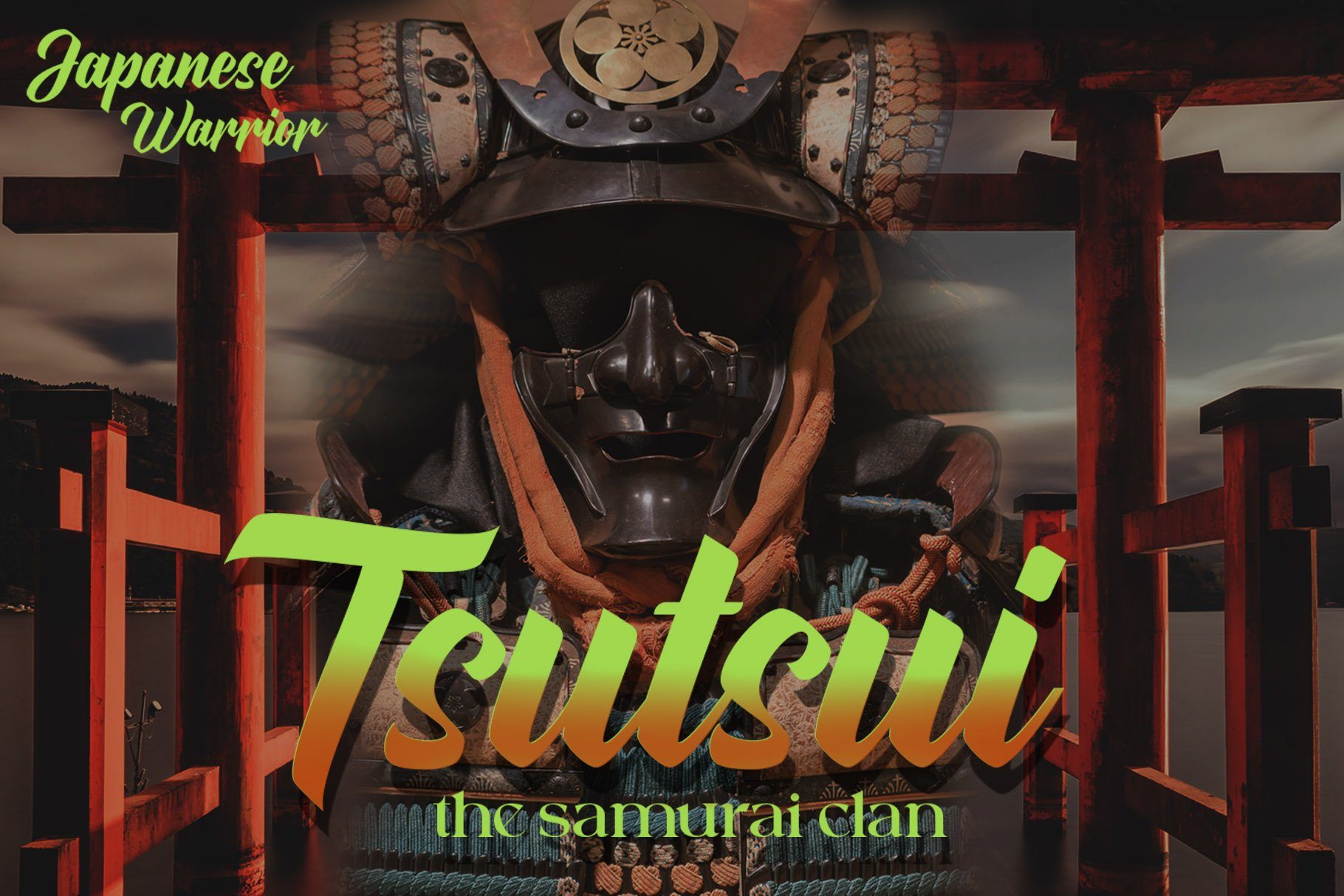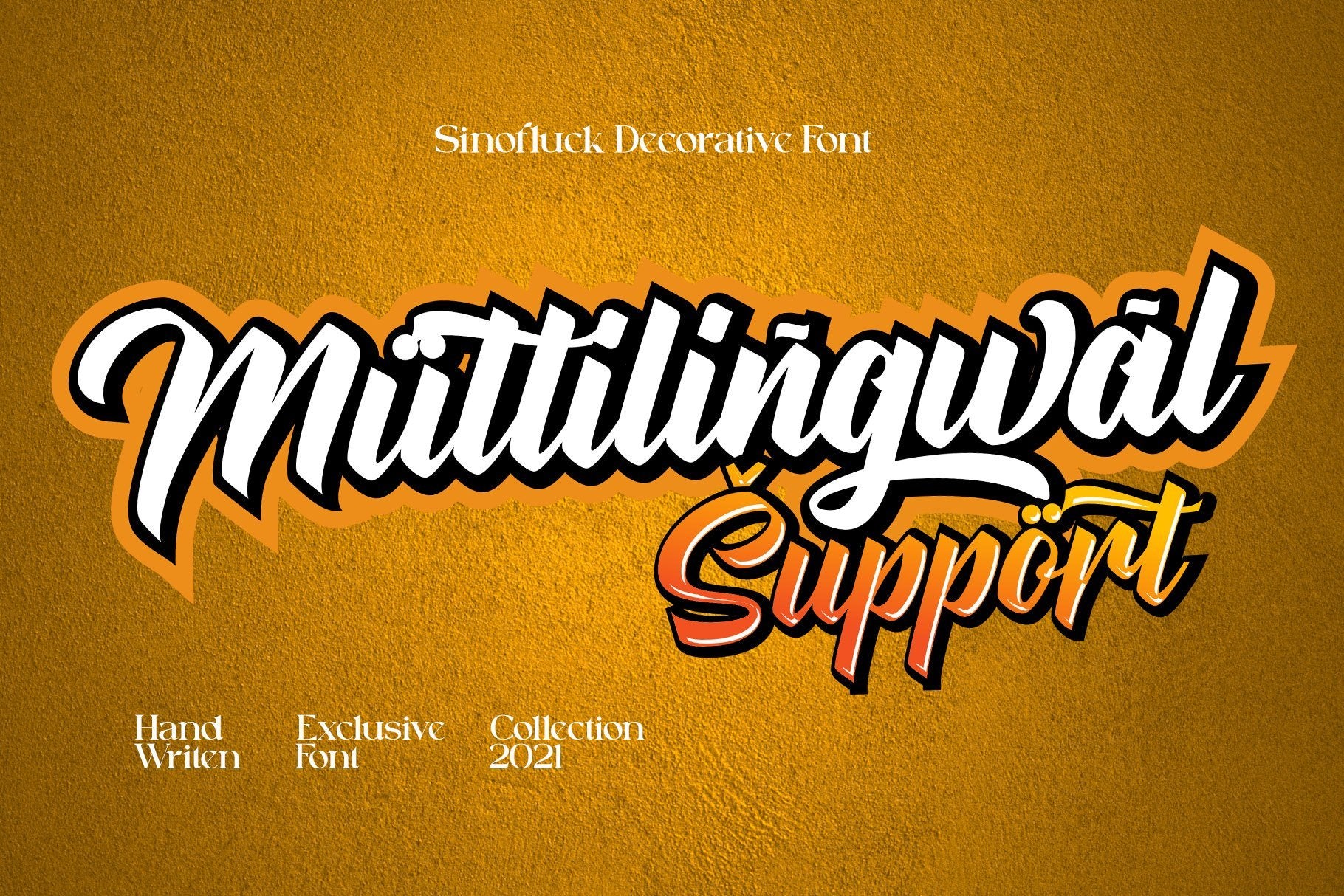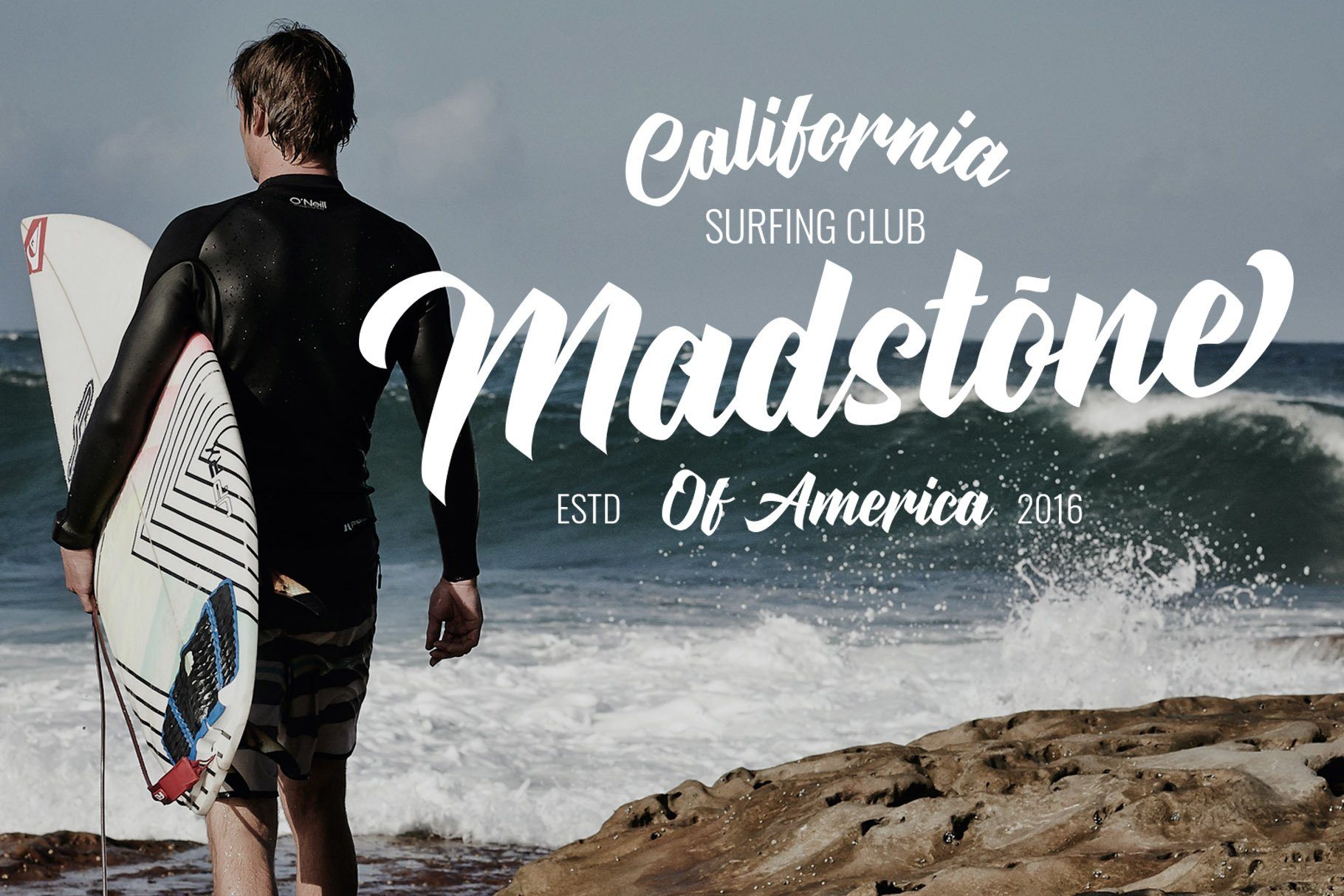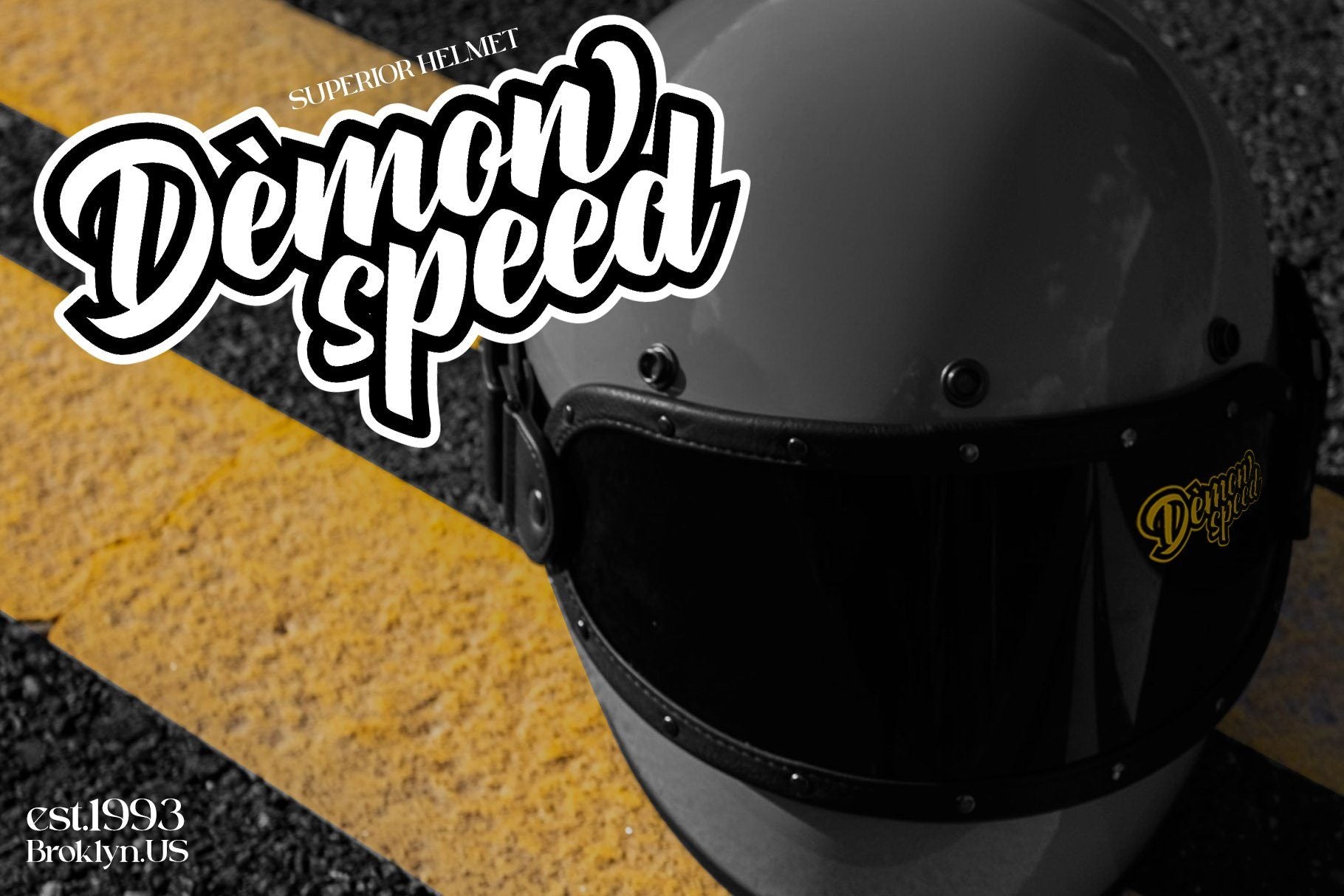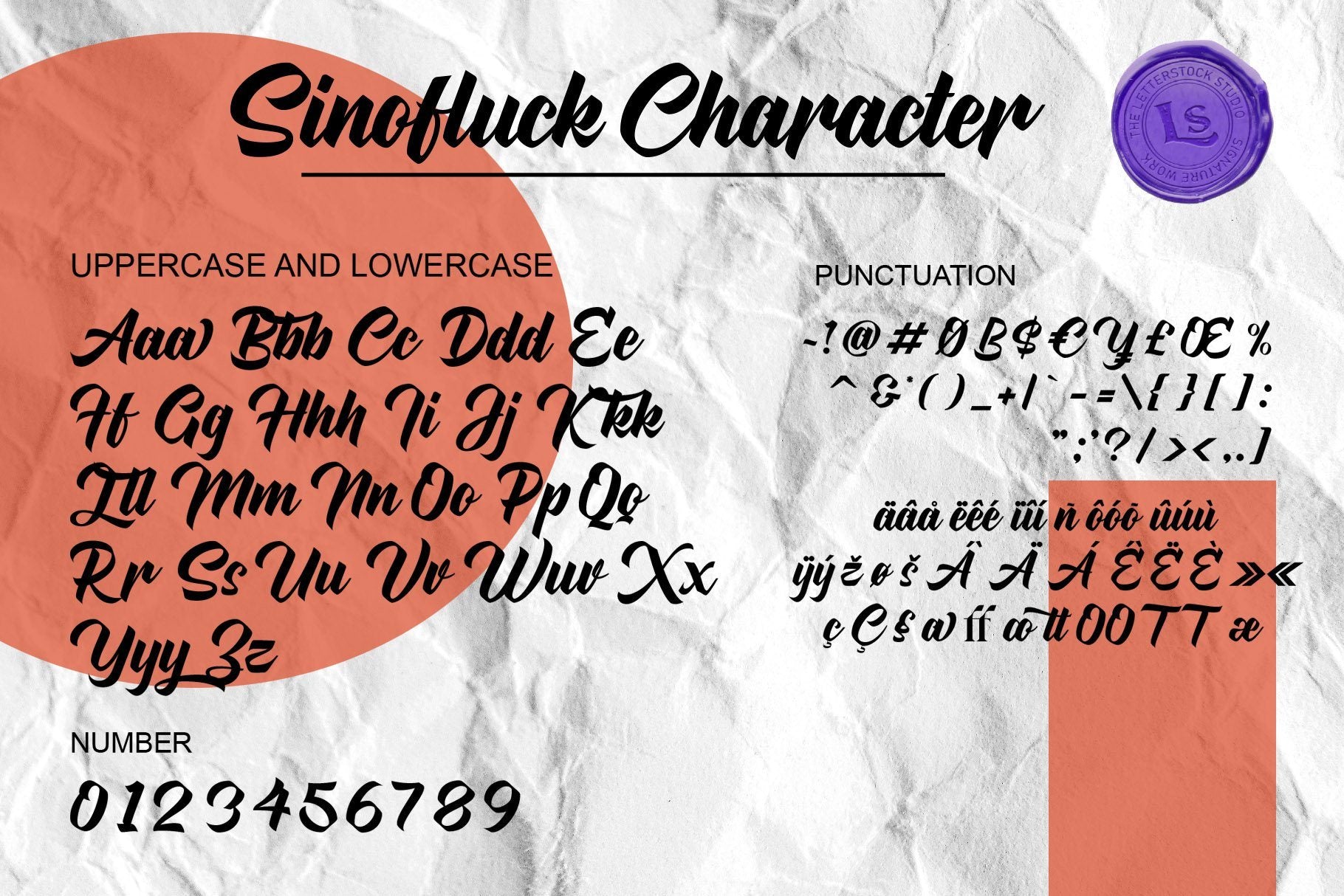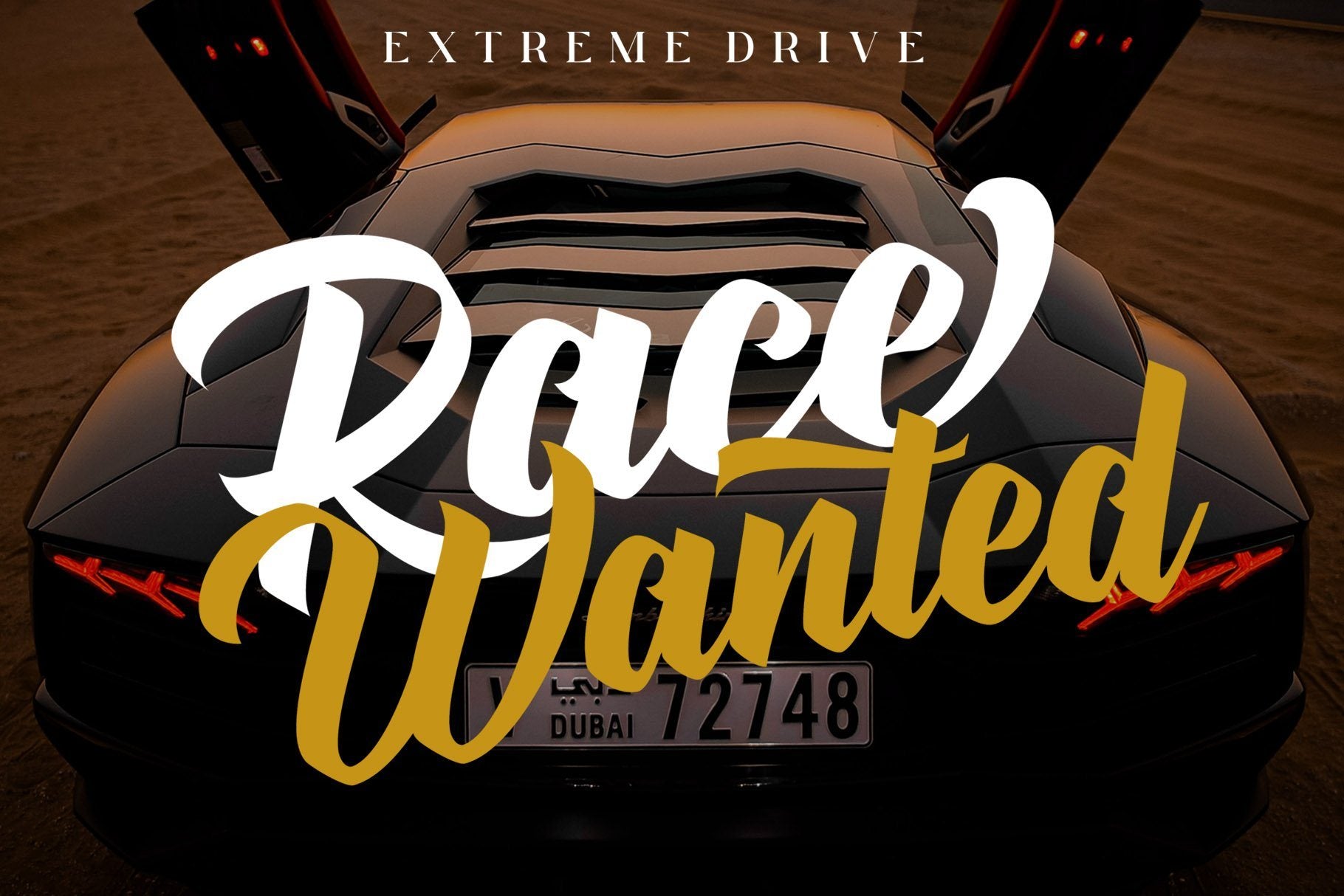
About Sinofluck
**Sinofluck Font** This pair was inspired by the samurai poster design that i saw on some coffee shop, It was crafted by hand specially to add natural handmade feeling in its brand identity than i make it clean with pentool. **Opentype features** Sinofluck font has 207 character set included Sinofluck Font is very good looking in logo, labels, product packaging, invitations, advertising and others. **What includes** * Sinofluck TTF file * Sinofluck OTF file * Sinofluck WOFF file * Multilingual support (Western European characters). This fonts works with folowing languages: Afrikaans, Albanian, Asu, Basque, Bemba, Bena, Chiga, Cornish, Danish, English, Estonian, Filipino, Finnish, French, Friulian, Galician, German, Gusii, Indonesian, Irish, Italian, Kabuverdianu, Kalenjin, Kinyarwanda, Low German, Luo, Luxembourgish, Luyia, Machame, Makhuwa-Meetto, Makonde, Malagasy, Malay, Manx, Morisyen, North Ndebele, Norwegian Bokmål, Norwegian Nynorsk, Nyankole, Oromo, Portuguese, Romansh, Rombo, Rundi, Rwa, Samburu, Sango, Sangu, Scottish Gaelic, Sena, Shambala, Shona, Soga, Somali, Spanish, Swahili, Swedish, Swiss German, Taita, Teso, Vunjo, Zulu Thank you for using this font. LS